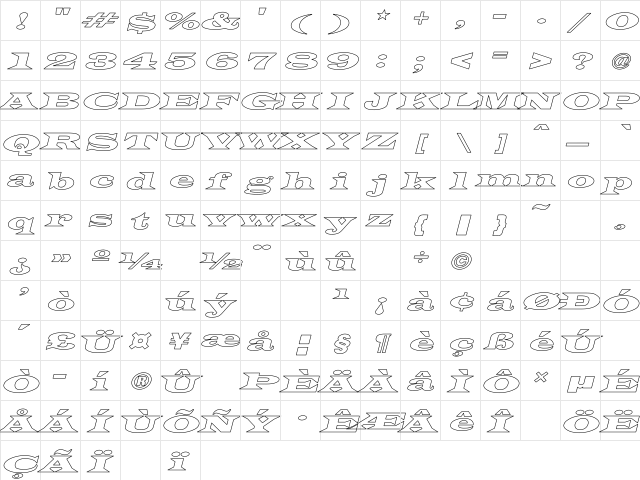
Latin-WideExtObl-Normal Hollow Regular
Design Context for Latin-WideExtObl-Normal Hollow Typeface
Latin-WideExtObl-Normal Hollow is a composed and adaptable typeface that performs quietly and consistently across a wide range of design contexts.